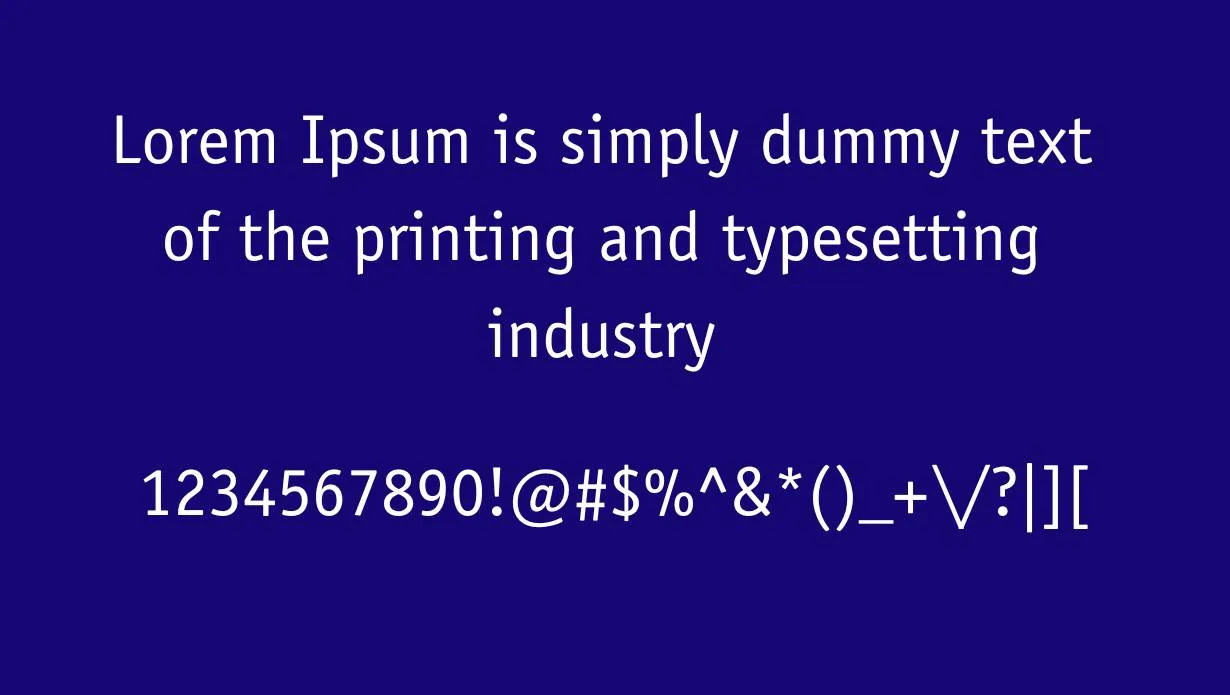
ITC Officina Sans Font is a modern and versatile sans-serif typeface suitable for a wide range of design applications.
Its clean lines and multiple styles make it a practical choice for branding, advertising, web design, and packaging.
| Designer | Ole Schäfer, Erik Spiekermann |
ITC Officina Sans Font offers a contemporary and well-organized aesthetic to your design work.